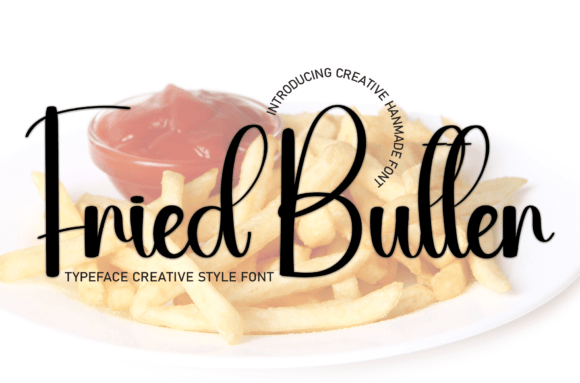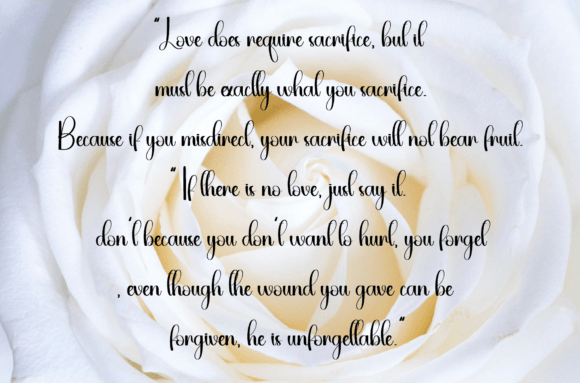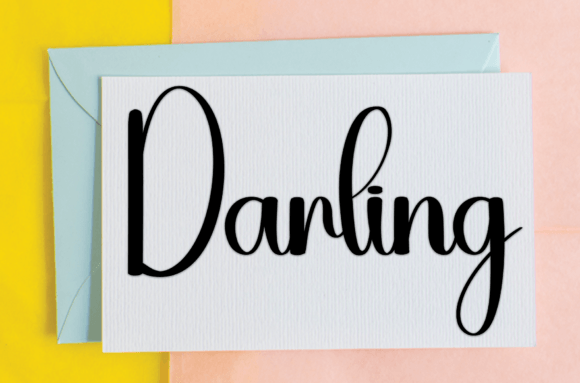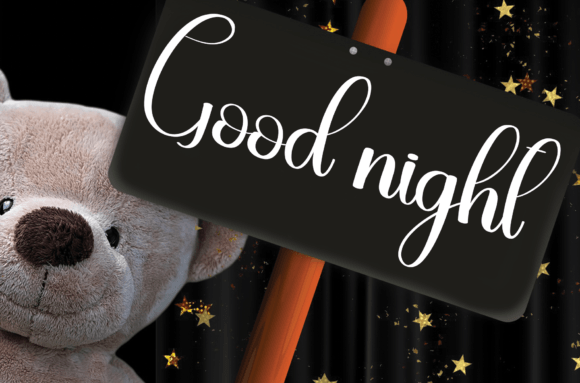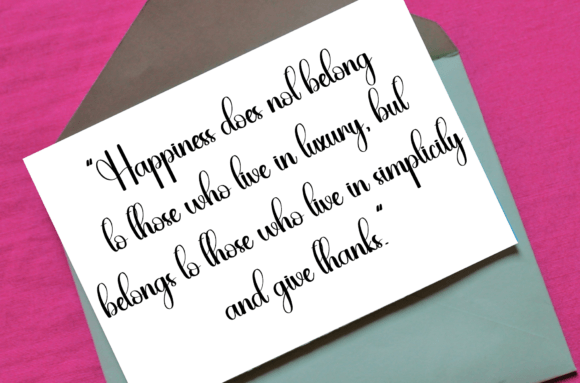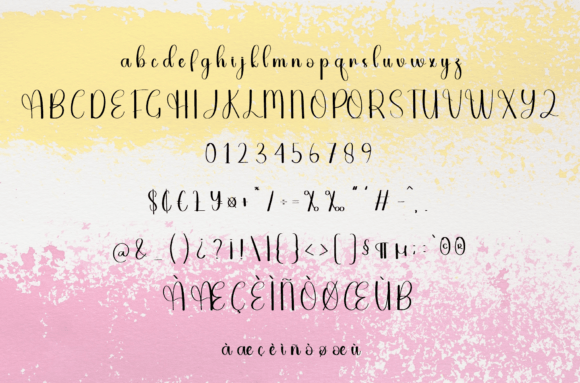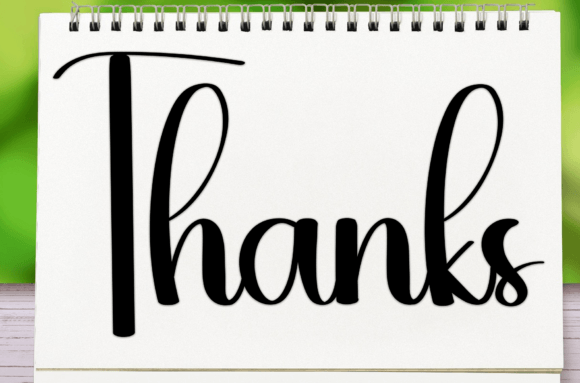
Fried Butter
Fried Butter is a sweet and friendly handwritten font. Creative and cute, this font is ideal for writing wedding invitations, cards, or any other design that might need a fun touch!